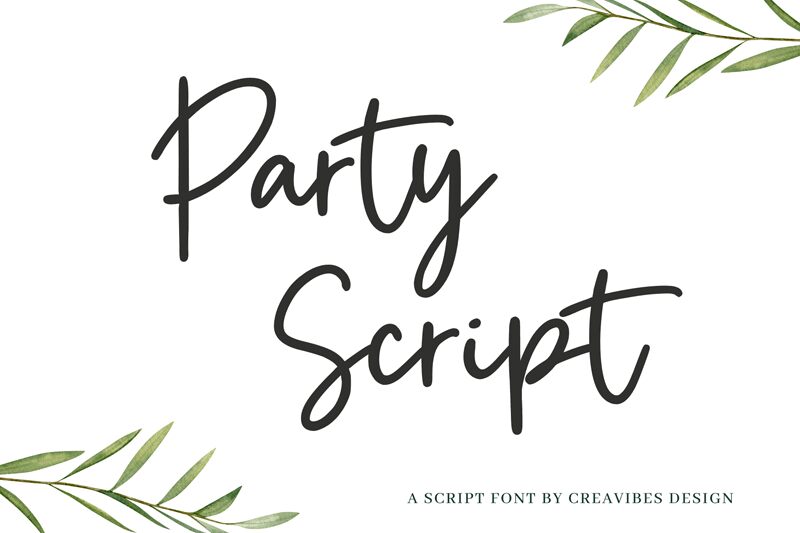
Party Script, a captivating handwritten font designed by Creavibes Design, exudes a charming and playful essence. With its elegant, cursive strokes and organic flow, this font effortlessly captures the spirit of a lively celebration. The dynamic, brush-like lines create a sense of movement and energy, while the subtle variations in letter shapes add a touch of whimsical individuality to each character.
Party Script's versatility shines through, lending itself beautifully to a wide range of design applications, from invitations and event branding to product packaging and personal stationery. Its distinctive style evokes a sense of joy and festivity, making it an ideal choice for projects seeking to convey a lighthearted, celebratory atmosphere.